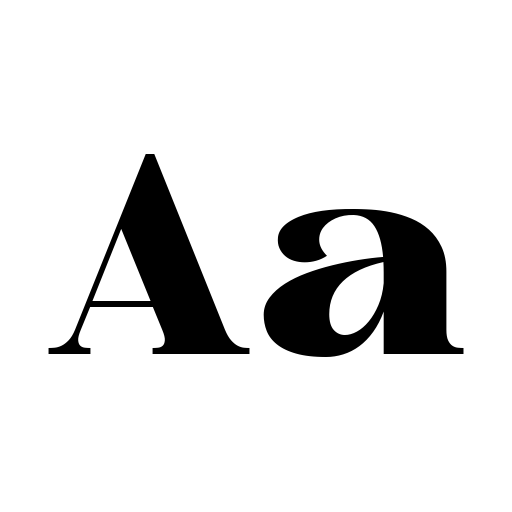
British Classical Demo is a bold, high-contrast serif font with strong, bracketed serifs and a refined old-style elegance. Its thick and thin strokes, along with distinctive letterforms like the double-story lowercase "g" and uniquely curved "Q" tail, give it a classic and authoritative feel, ideal for luxury branding, editorial headlines, and sophisticated logos. This font works best in contexts where a traditional yet impactful presence is needed, combining timeless style with bold modernity.
British Classical Demo Font
About British Classical Demo Font
| Font family | British Classical Demo Font |
| Designer | Suandana Ipandemade |